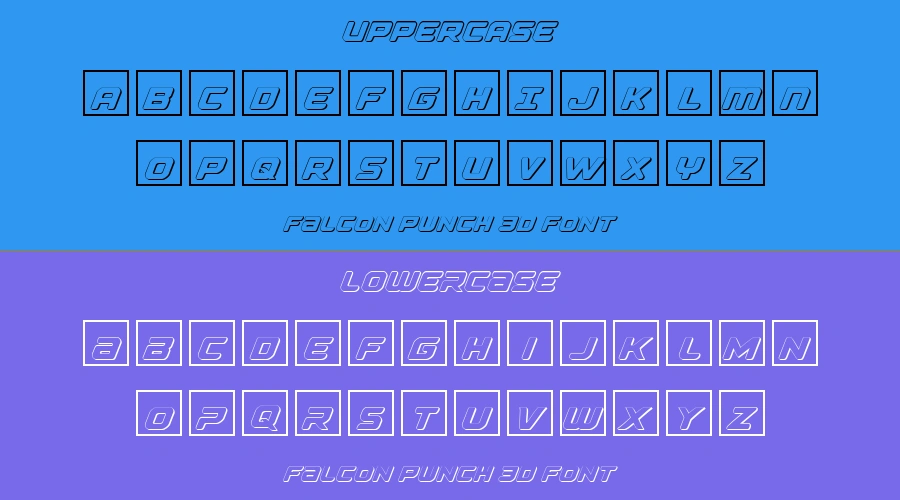
About Falcon Punch 3D Font
Falcon Punch 3D Font stands out for its distinctive combination of expressive curves and reliability. Ideal for product naming, it provides the expressiveness and visual authority that professional projects demand. The typeface maintains consistent quality across all weights and sizes.
Key features include refined harmonious shapes and practical proportional figures, enhancing typographic expression. In book chapters applications, Falcon Punch 3D Font demonstrates exceptional color consistency. The contrast level and historical references contribute to its distinctive character and professional appeal.